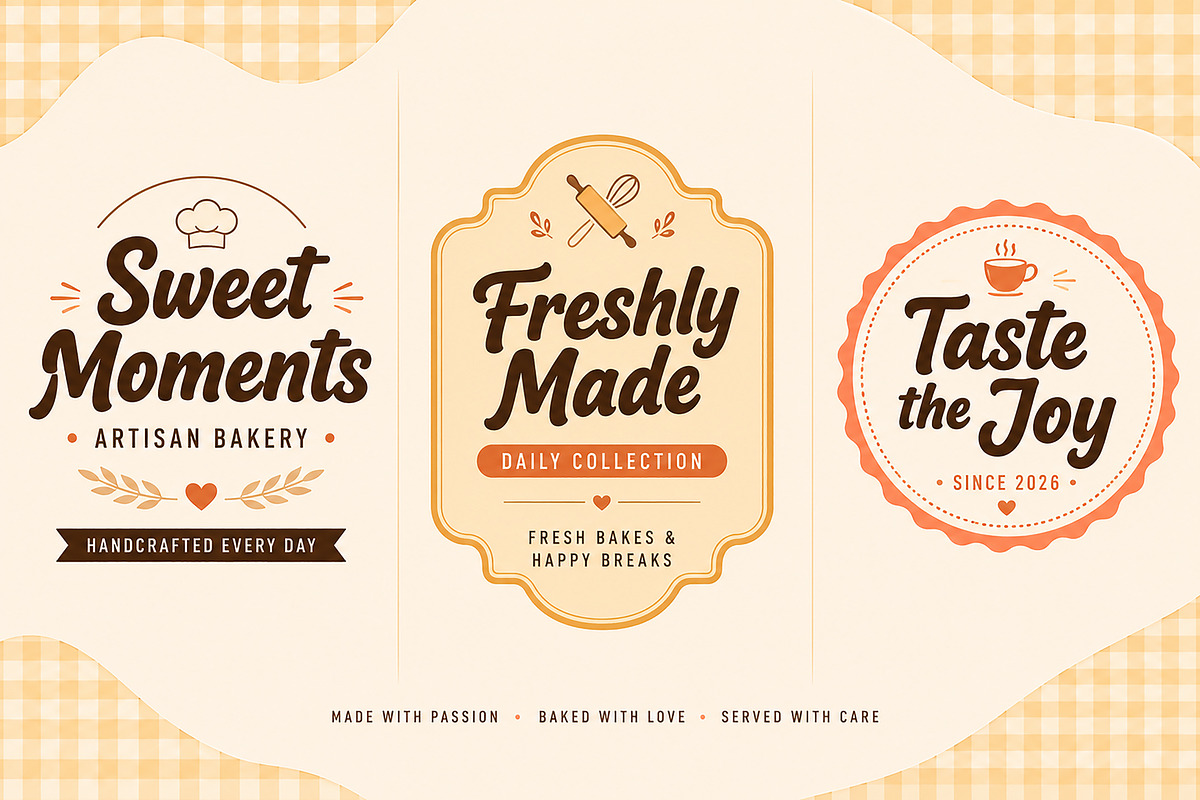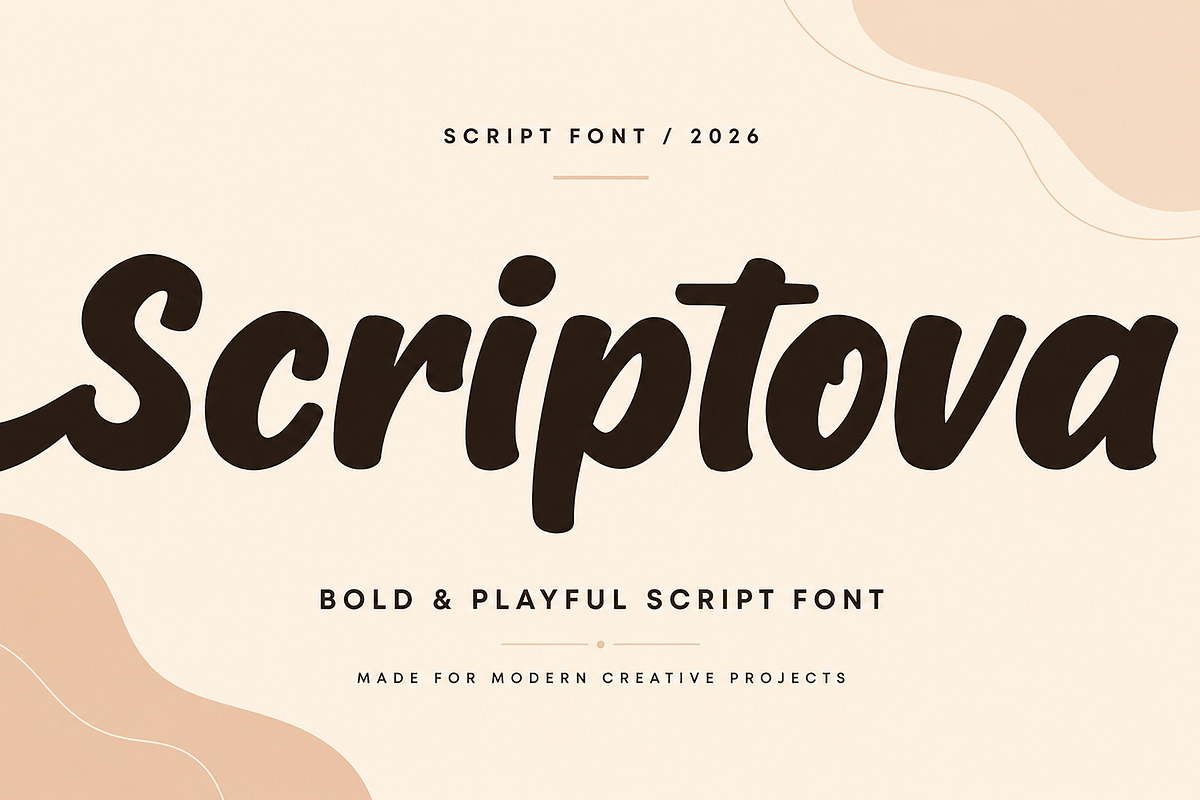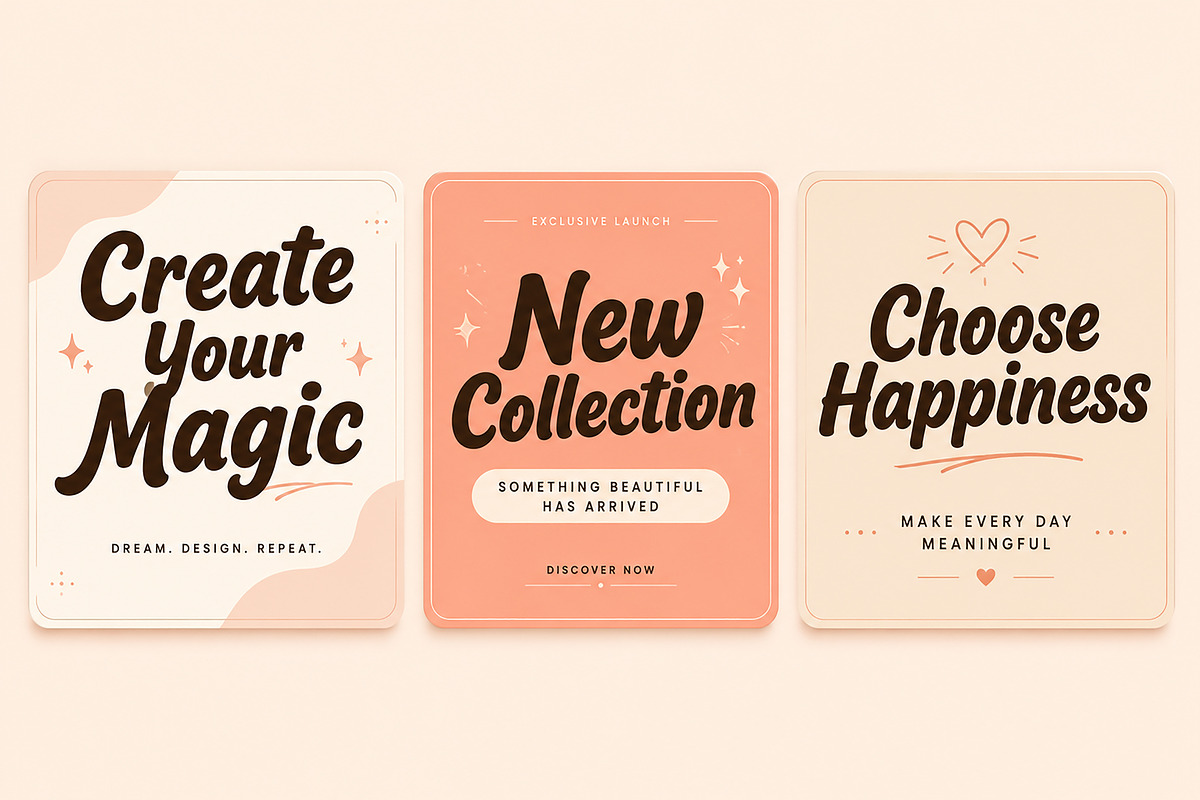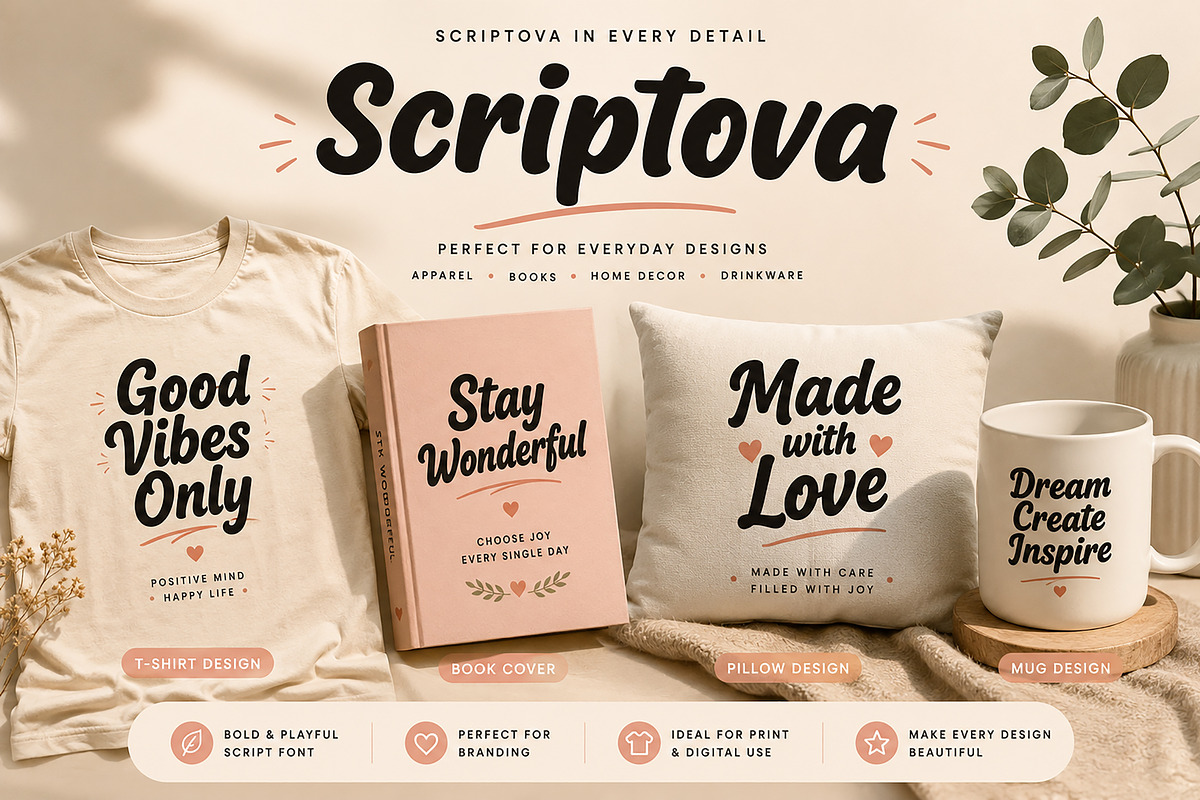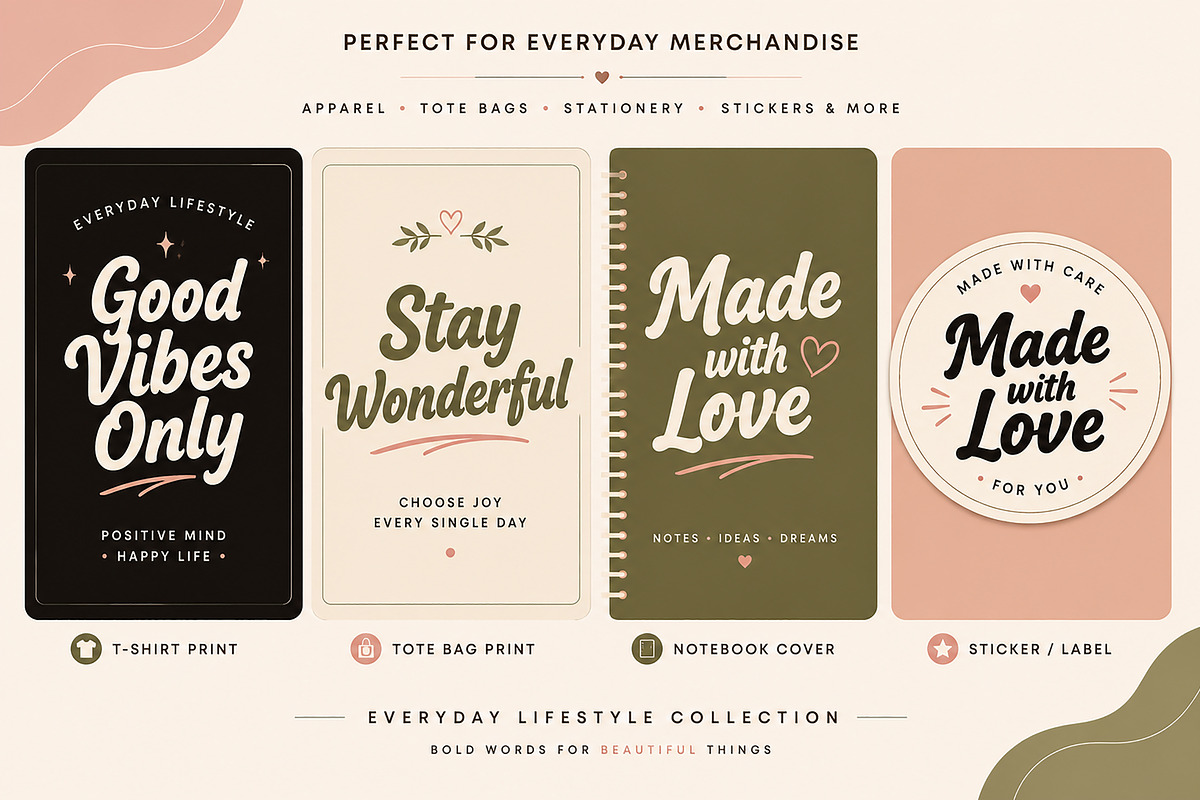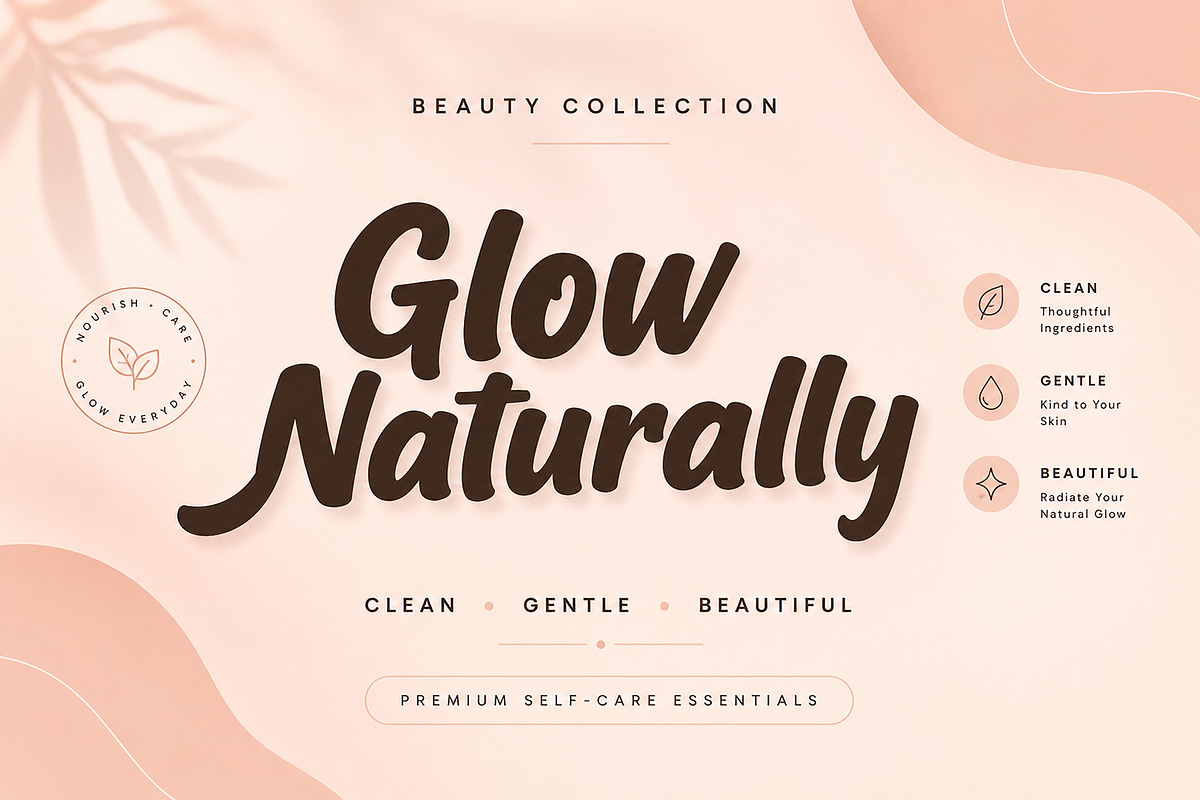
Scriptova
Scriptova is a bold, smooth, and playful script font designed to bring warmth and personality to your creative projects. With its flowing handwritten style and clean curves, Scriptova is perfect for branding, packaging, social media graphics, logos, apparel, invitations, merchandise, and modern lifestyle designs.
Whether you're creating a beautiful brand identity, a trendy café logo, eye-catching product packaging, or engaging social media content, Scriptova delivers a friendly yet premium look that stands out effortlessly.
Its bold letterforms ensure excellent readability while maintaining a handcrafted feel, making it suitable for both digital and print applications.
Branding & Identity
Café & Bakery Branding
Beauty & Cosmetic Brands
Advertising
T-Shirt Designs
Tote Bag Designs
Mug Designs
Posters
Greeting Cards
Invitations
Quotes
Stickers & Labels
Lifestyle Products
Website Headers